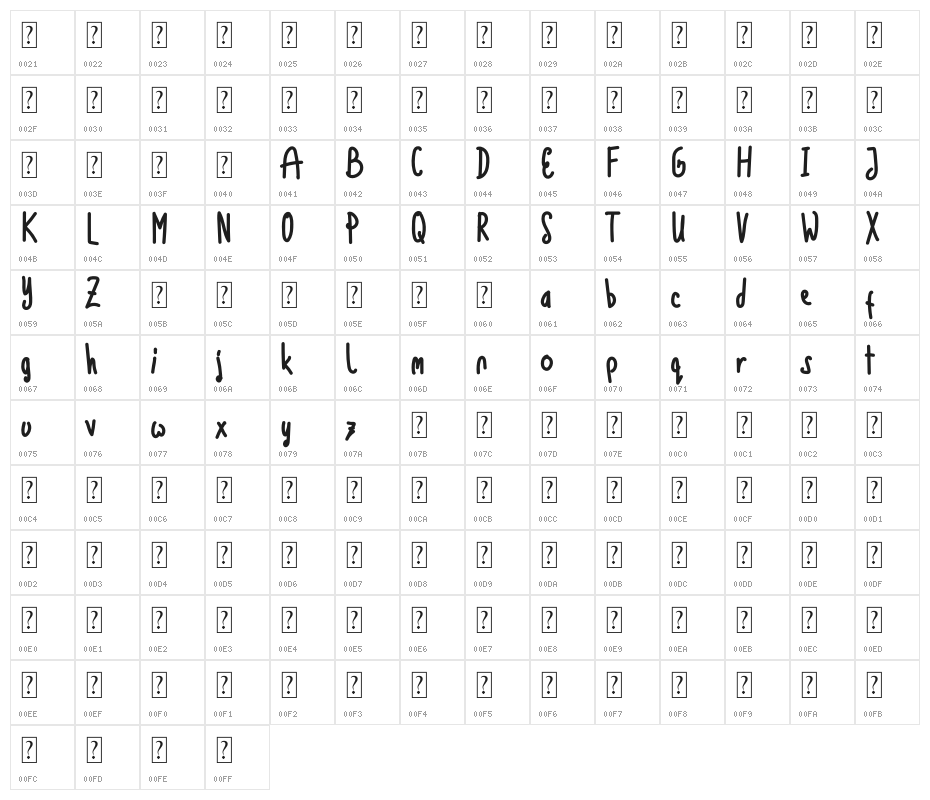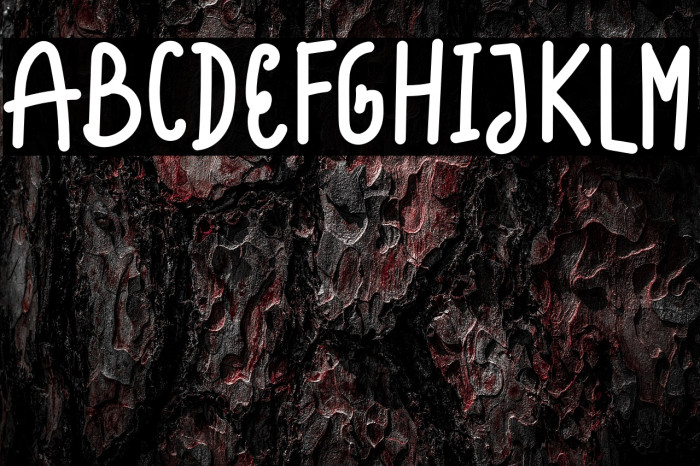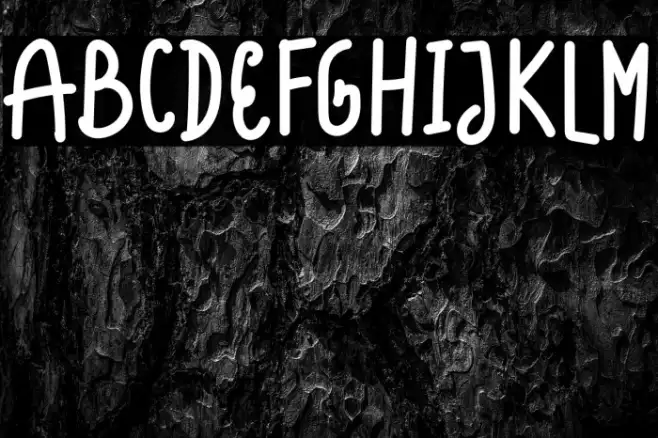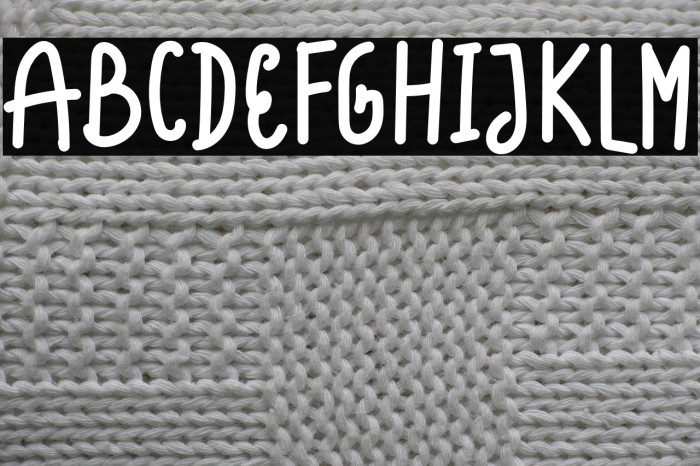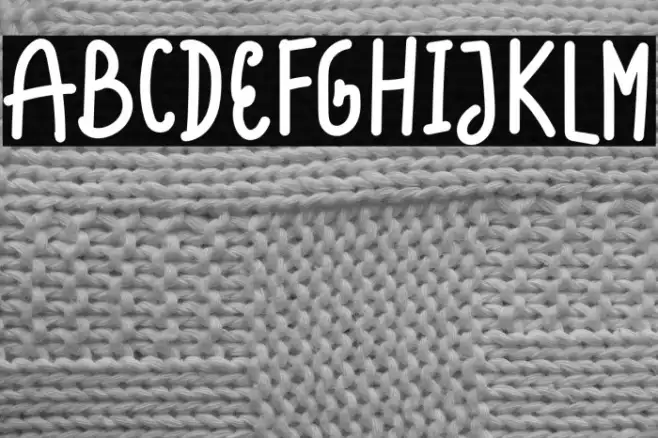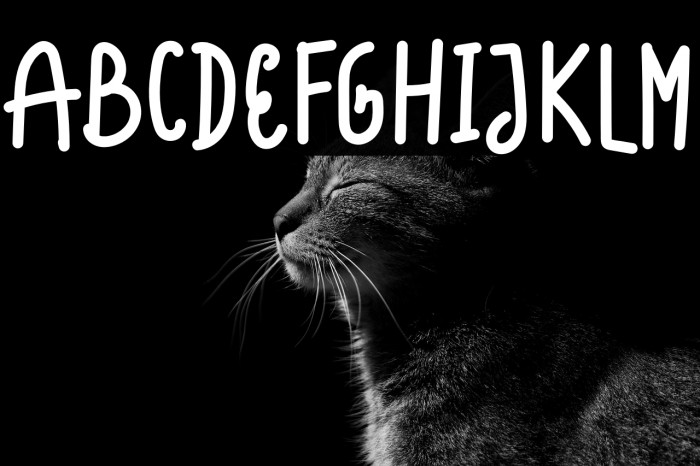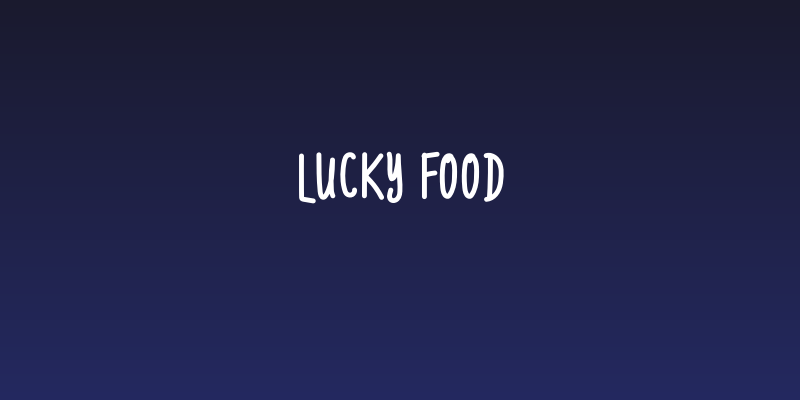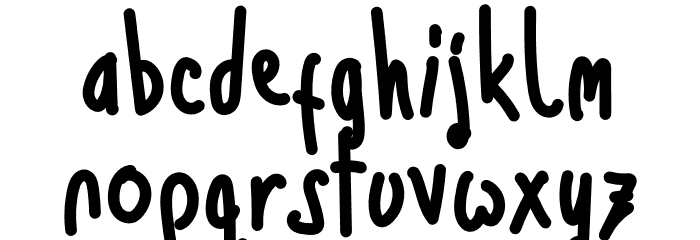
Lucky Food Font
Lucky Food Description
This playful and whimsical font features a handwritten style with a casual and friendly appearance. The letters are slightly irregular, adding a touch of personality and charm. The uppercase characters are bold and stand tall, while the lowercase letters maintain a consistent flow with rounded edges. The font's overall look is informal and approachable, making it ideal for creative projects. The spacing between characters is normal, ensuring readability while maintaining its unique style. This font does not include standard special characters, which may limit its use in certain contexts.